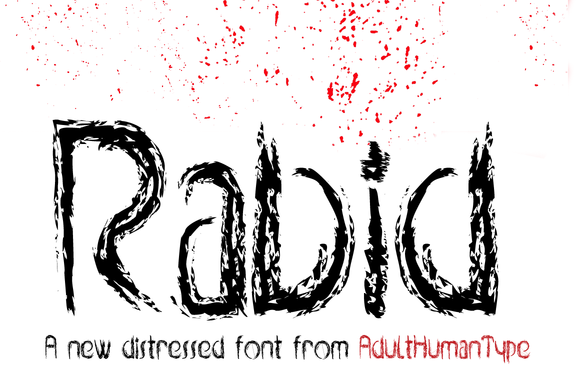
Unleash your wild, rebellious spirit with Rabid Font, the unapologetically bold and grungy display font that will make your designs stand out in a chaotic symphony of creativity. Dive into the mesmerizing world of Rabid Font, a mesmerizing typographic odyssey that captures the essence of raw energy and untamed passion.
Prepare to be captivated by its unique blend of charcoal and chalk textures, juxtaposed with an electrifying splash of red, evoking a sense of urgency and captivating intrigue. Allow your imagination to run wild as you harness the power of Rabid Font to manifest your most audacious designs, leaving an indelible mark on the minds of your audience.
With Rabid Font, break free from the mundane and embrace the unconventional. Whether you're crafting captivating logos that demand attention, designing striking posters that ignite curiosity, or creating website layouts that exude individuality, Rabid Font is your weapon of choice. Its expressive strokes and energetic charm will elevate your designs to new heights, leaving your audience spellbound and craving more.
Embrace the rebellious spirit of Rabid Font and watch as your creative visions transform into tangible masterpieces. Defy convention and establish a design legacy that reverberates with raw power and untamed beauty. Experience the transformative potential of Rabid Font and unleash your inner artist, leaving the ordinary behind and embracing the extraordinary.